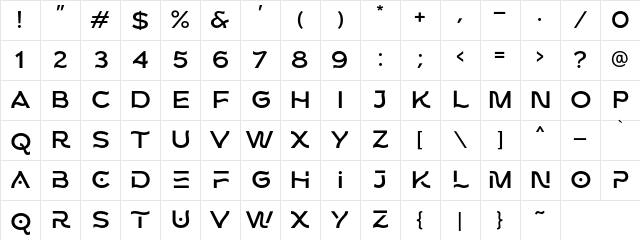
Bodwars DEMO Regular
Foundry: Sarid Ezra
Designer: Sarid Ezra
Design Context for Bodwars DEMO
Bodwars DEMO is a composed and adaptable typeface that performs quietly and consistently across a wide range of design contexts.